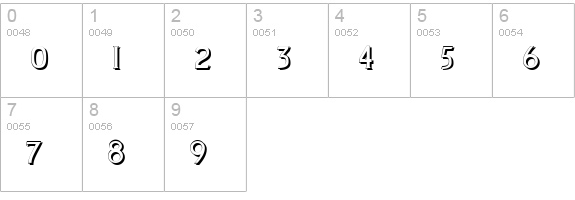
LewishamShadowII font is a modern and stylish typeface that exudes elegance and sophistication. With its sleek lines and unique shadow effect, this font is perfect for adding a touch of class to your designs. Whether you're working on a branding project, a poster, or a website, LewishamShadowII font will make your text stand out. The best part? LewishamShadowII font is completely free to download at FontsMarket.com. This means you can easily access this beautiful font and use it in your projects without any cost. Don't miss out on this amazing opportunity to enhance your designs with the striking LewishamShadowII font. Download it now and elevate your typography game!